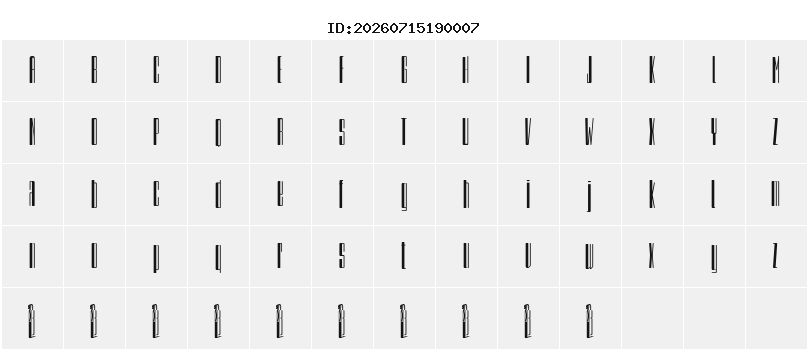
• Font Name: a sogra Ruth
• Designer: Fernando Haro
• Manufacturer: deFharo
• Description: This modernist typography is dedicated to my mother in law Ruth who left a sad day August 2015
a sogra Ruth.ttf is a modern, elegant sans-serif font designed for ultimate readability and visual harmony. Perfect for branding, headlines, web design, and print materials.